Designed in 2009 for the corporate visual identity of a digital television channel, Tomica was completely redesigned in 2011. Tomica is a sans serif geometric character. Even though it is of original design, Tomica is a descendant of Paul Renner's Futura (1927).
Sweet Mia is a playful modern calligraphy font with a dancing baseline. This sweet font has nice smooth lines and is perfect for crafters and cutting machines.
Sweet Mia will look gorgeous on cards, mugs, quotes, logo's and all your other lovely projects.
Sweet Mia contains standard characters, lowercase, uppercase, numbers, punctuation, ligatures, international characters and some playful alternates.
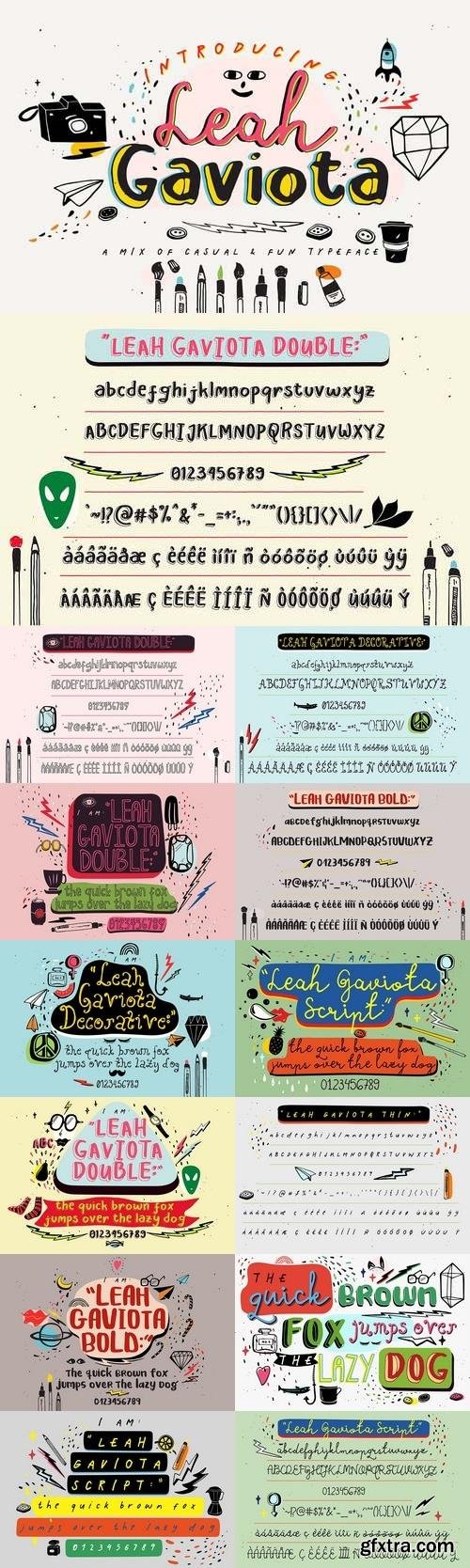
Leah Gaviota is a mix of multiple type of font: script, bold, outline, serif & sans-serif, that you can use to create a casual, artisan work. With its 6 different look, Leah Gaviota family is best for your signature, greeting card title, badge and sticker, logo and return address, web design & text, some cover design and so forth, you decide! Leah Gaviota comes with accented glyphs for international language (check preview images to see which glyphs are included). And to make your artwork even cooler, all those mini illustrations in the preview images are included! There are 100+ icons you can mix & match to your design.
Leah Gaviota Features:
- In the Family: Bold, Double, Thin, Script, Decorative, & Outline
- Natural Pen Stroke
- Hand Drawn Font
- Accented Glyphs
Emporia is an art deco typeface in two styles. Regular and Rough style options Alternate characters toggleable via caps lock Multilingual uppercase letters, numbers, punctuation 2 bonus textures
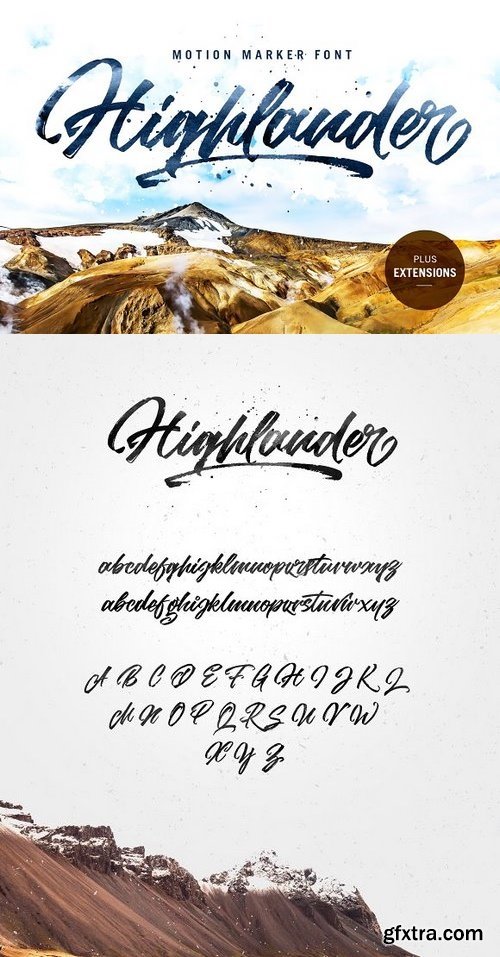
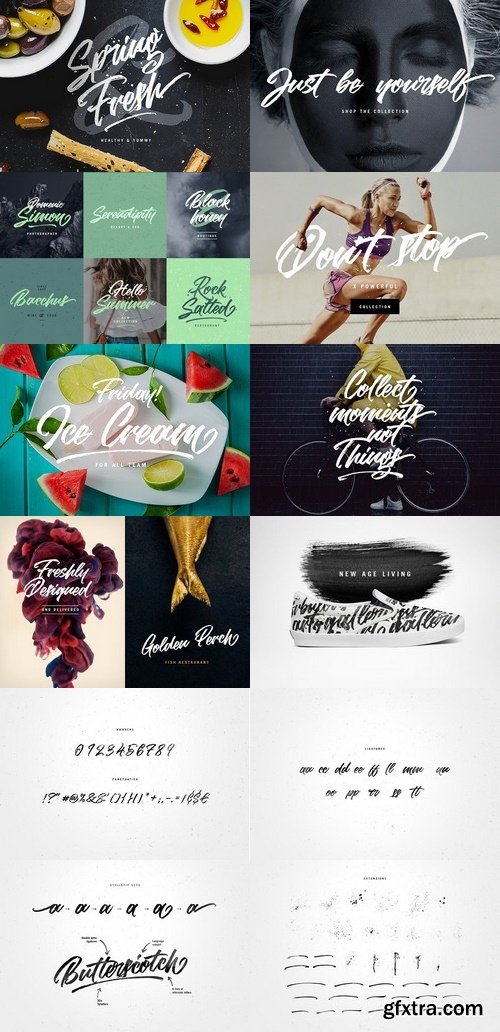
Highlander comes with a full set of upper and lower case characters - giving you the extra freedom to turn your text into authentic custom-made hand lettering. Highlander font Includes a large range of glyphs including numerals, punctuation & multilingual support. Also included is a bonus extras font, which consists of Extentions designed to perfectly compliment your primary text.
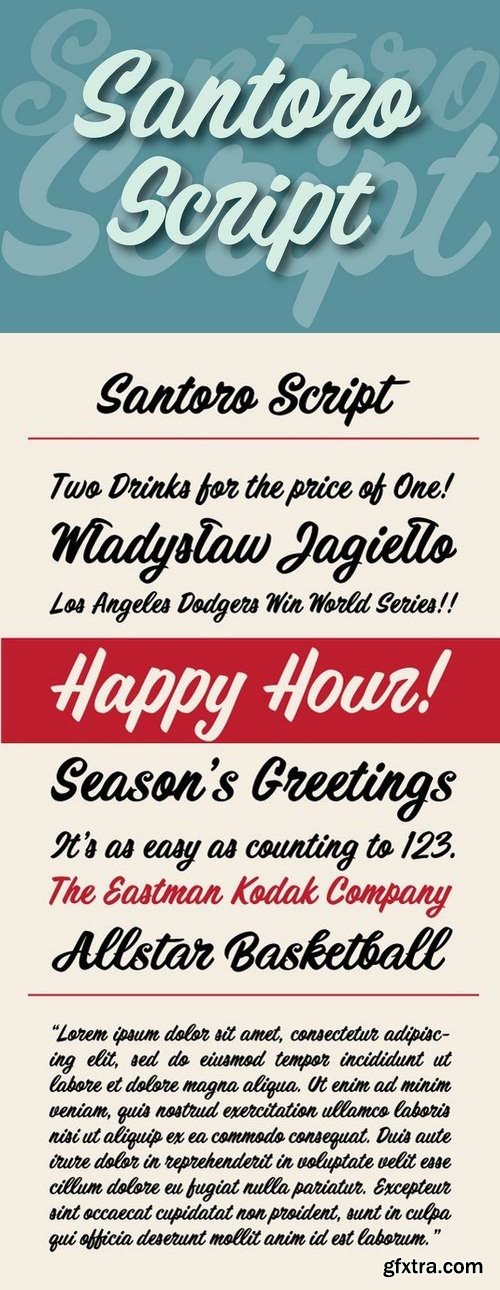
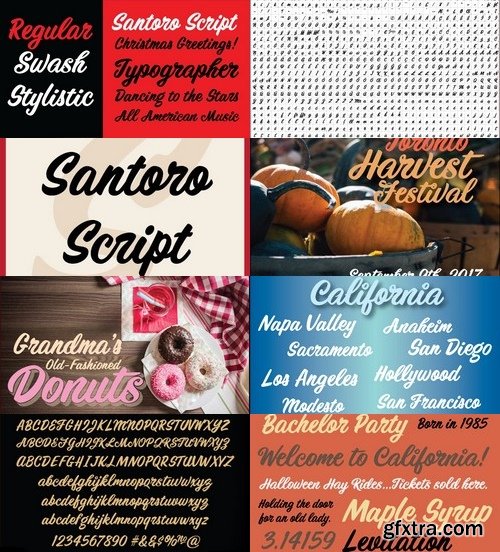
Santoro Script is a fun, happy script font created in the style of handpainted sign lettering. It displays a jubilant attitude which will add a spontaneous, warm and friendly look to any design. The typeface contains at least three versions of every letter found under the Swash and Stylistic Alternates OpenType features as well as a few additional letter versions and ligatures under the Titling and Discretionary Ligatures OpenType features. These extra alternates help give the font a hand painted feeling. Jukebox fonts are available in OpenType format and downloadable packages contain both .otf and .ttf versions of the font. They are compatible on both Mac and Windows. All fonts contain basic OpenType features as well as support for Latin-based and most Eastern European languages.
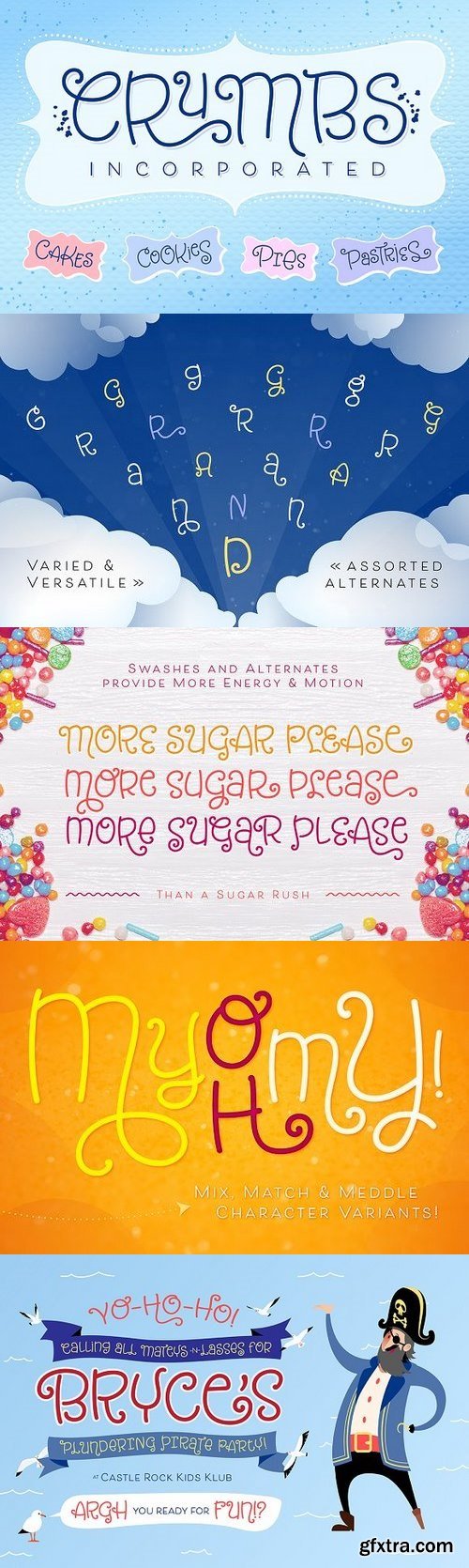
We all learned in school: thou shalt not set script faces in uppercase! … unless, that is, they’re Tangelo. Tangelo is a fun, casual display script that could be more accurately termed a unicase – it borrows characters liberally from the lower case, but scales them up to cap-size. Tangelo is ideal for kid-friendly products like candy packaging, game boards or apps, and clothing labels. It includes 115 alternates and swash characters for a convincingly hand-lettered look.
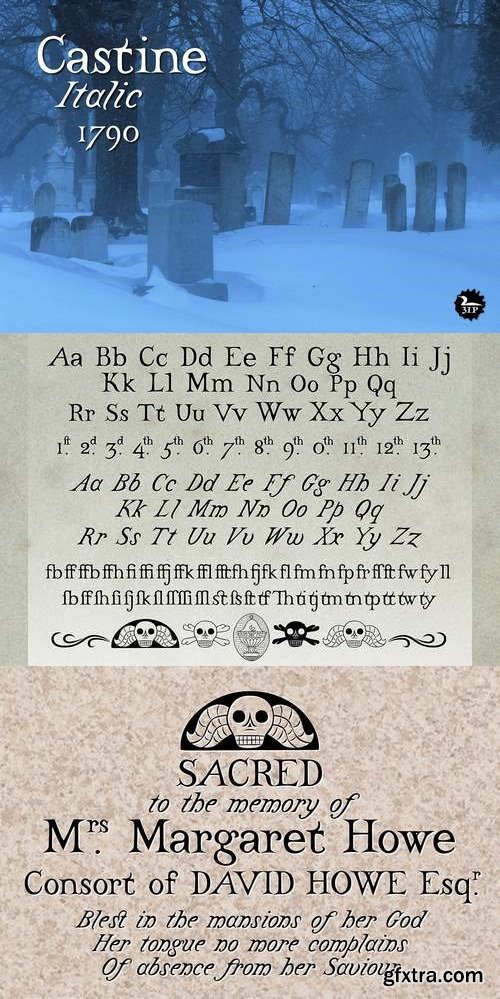
There’s a very old cemetery in Castine, Maine—a lovely coastal town with a surviving crop of stately old American elms. Dating back into the 1700s, the cemetery’s headstones have the familiar old domed-tablet shape, some topped by winged skulls. Thanks to the Castine Historical Society, I got my hands on a couple of epitaph rubbings and modeled a typeface after the lost stone carving style peculiar to the time and place. Castine (the font) has a melancholy, wistful, nostalgic air—and is frankly just a little bit spooky. Its long, sharp serifs and slight uneveness recall simpler times when character meant more than precision. Spaced loosely in display situations, it has a broken-in feel—like comfortable shoes.
In an old handbook on bonsai—the Japanese art of dwarfed potted trees—I noticed the type was bad. Old worn lead type, I suspect, spread wide at the tops of characters and nearly disappearing at the bottoms. But far from being a distraction, I found this top-heavy text somehow warm, familiar, and easy on the eyes. Inspired, I made a typeface. (Didn’t take me long to decide on a name for it either: a name with a double-meaning, based both on its look and its inspiration.) Bonsai’s roman and true italic styles work well at small point sizes or in display situations. Use to evoke a curiously retro feel—like déjà vu.
Flipping through a friend’s old book of John Burroughs nature essays many years ago, I thought it’d be fun to see if I could create a typeface with the same uneven, imperfect look to it. I picked and chose among various printed characters, enlarged them somewhat with an old photocopier, then hand-rendered each digitized glyph into roman and italic styles. The result: a surprisingly legible “grunge” serif that’s become one of our most-used fonts. Attic Antique shares the wide spacing and ample serifs of the Century faces, but with the worn, decayed look of the text in an-old library book. Use it to represent age, to suggest photocopied archives, or to convey a general feeling of old-bookishness.
Lovage font - sans serif, roughen font. Ideal for logos, branding, blogs, handmade craft items, scrap booking, printed paper items and more.